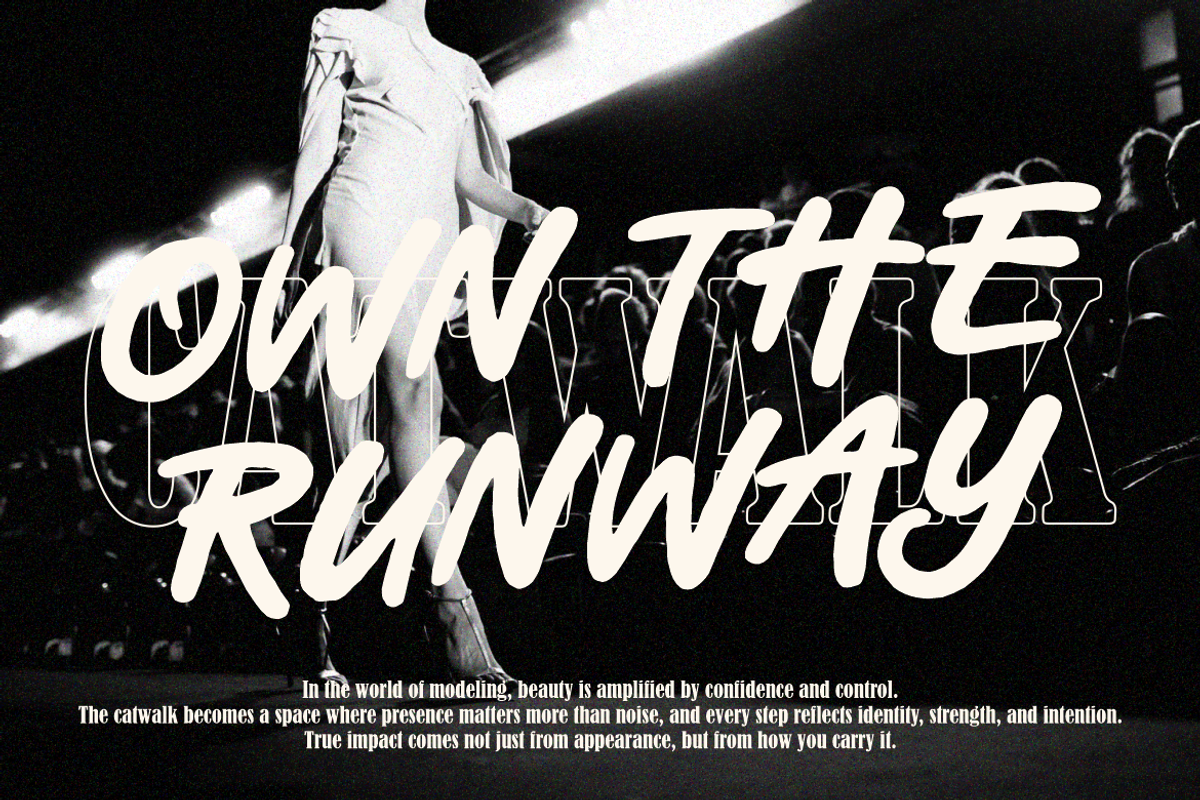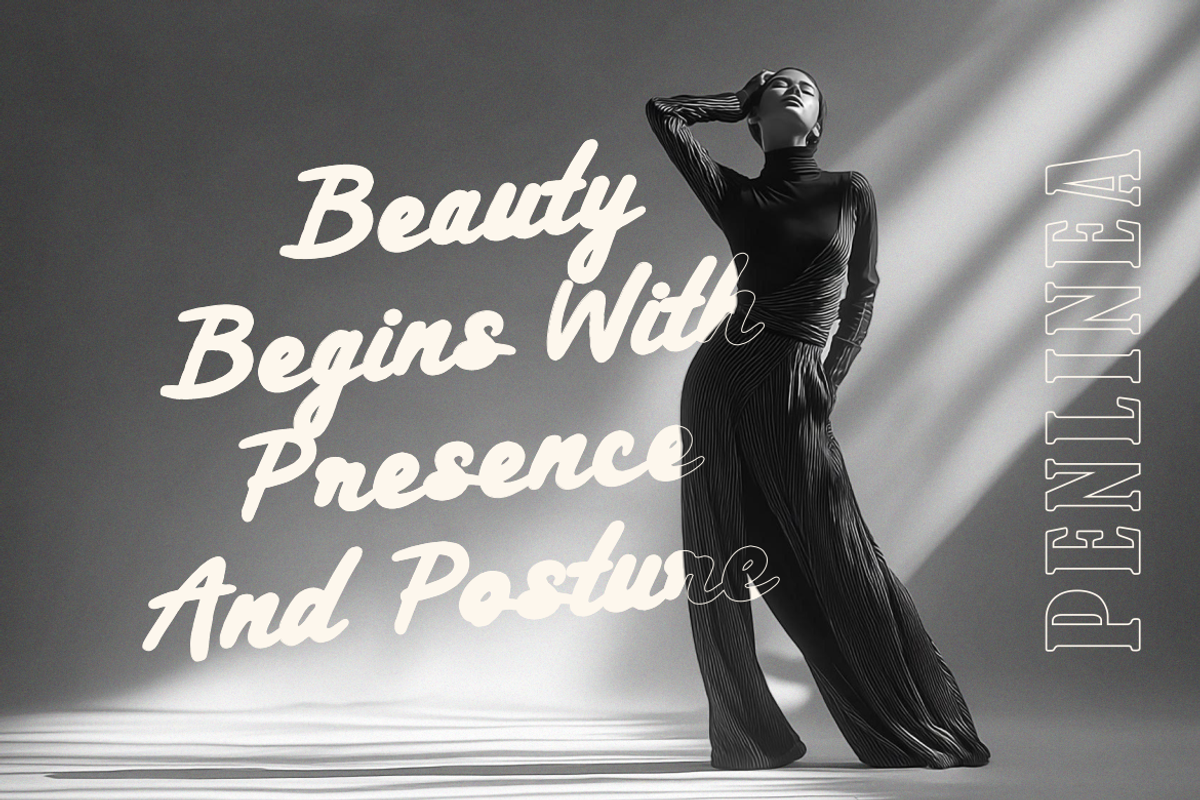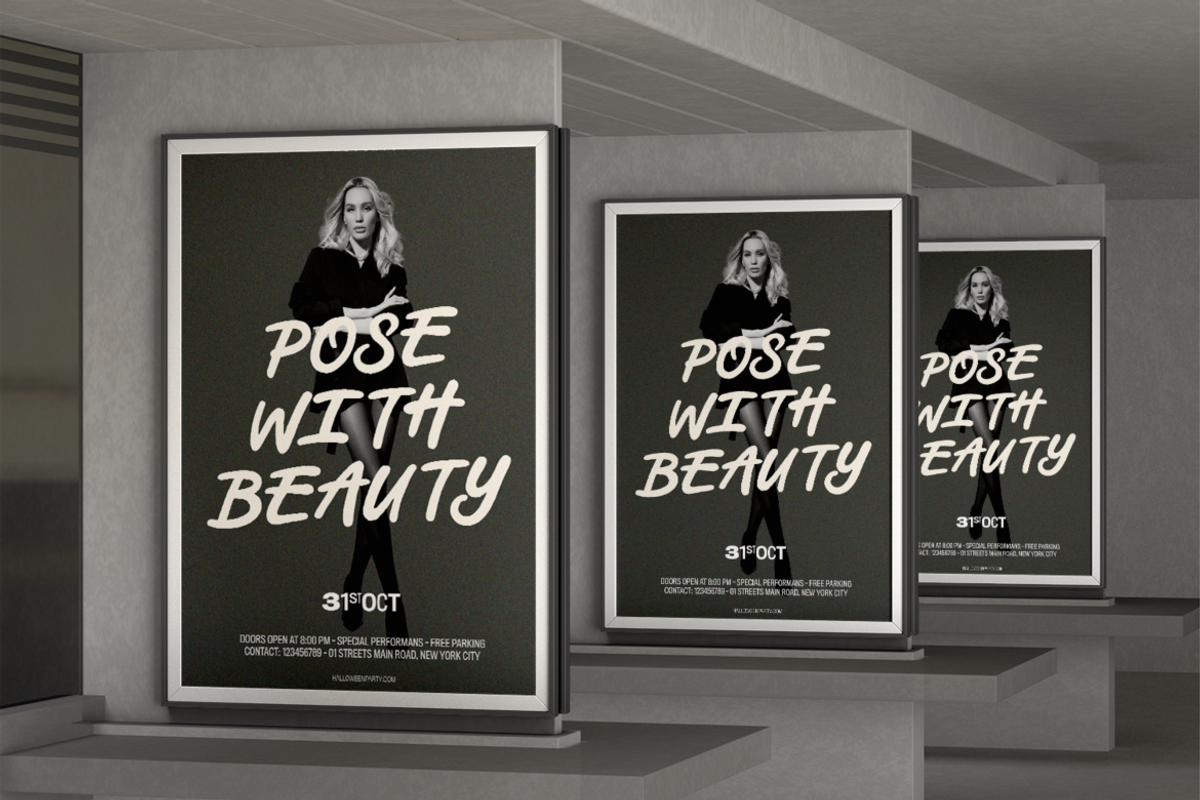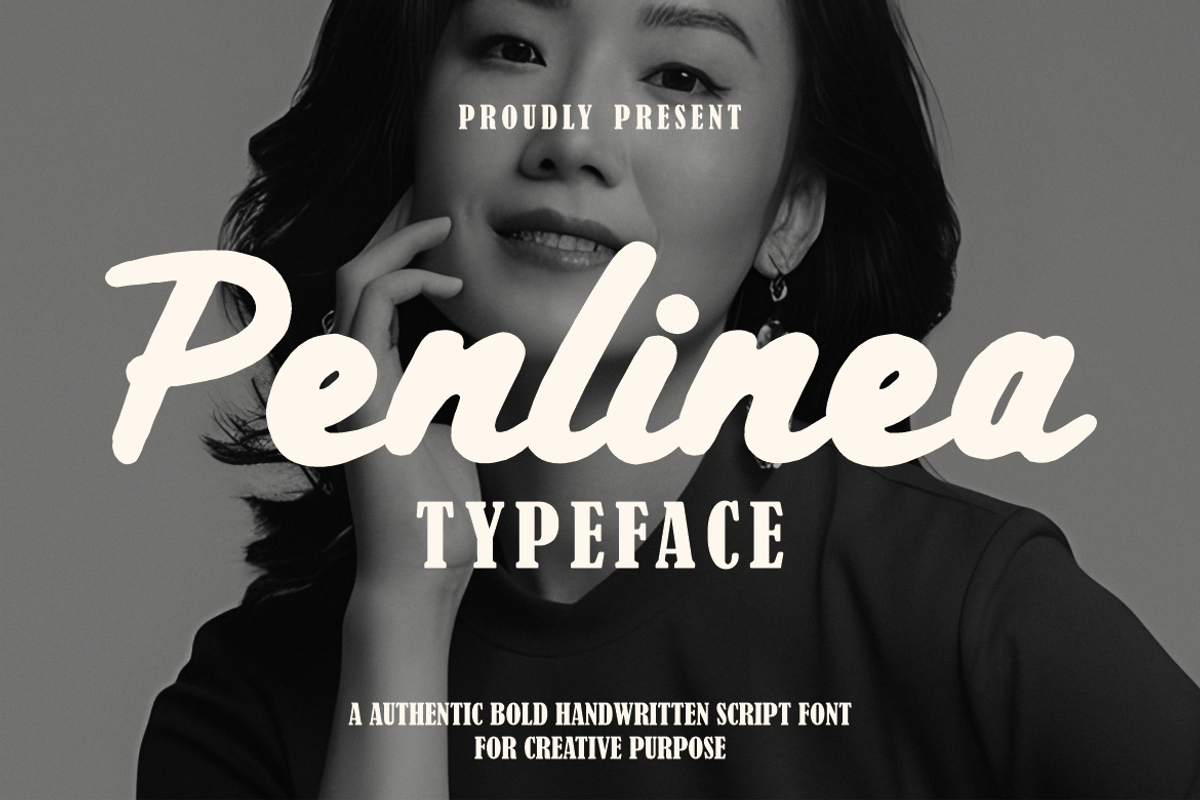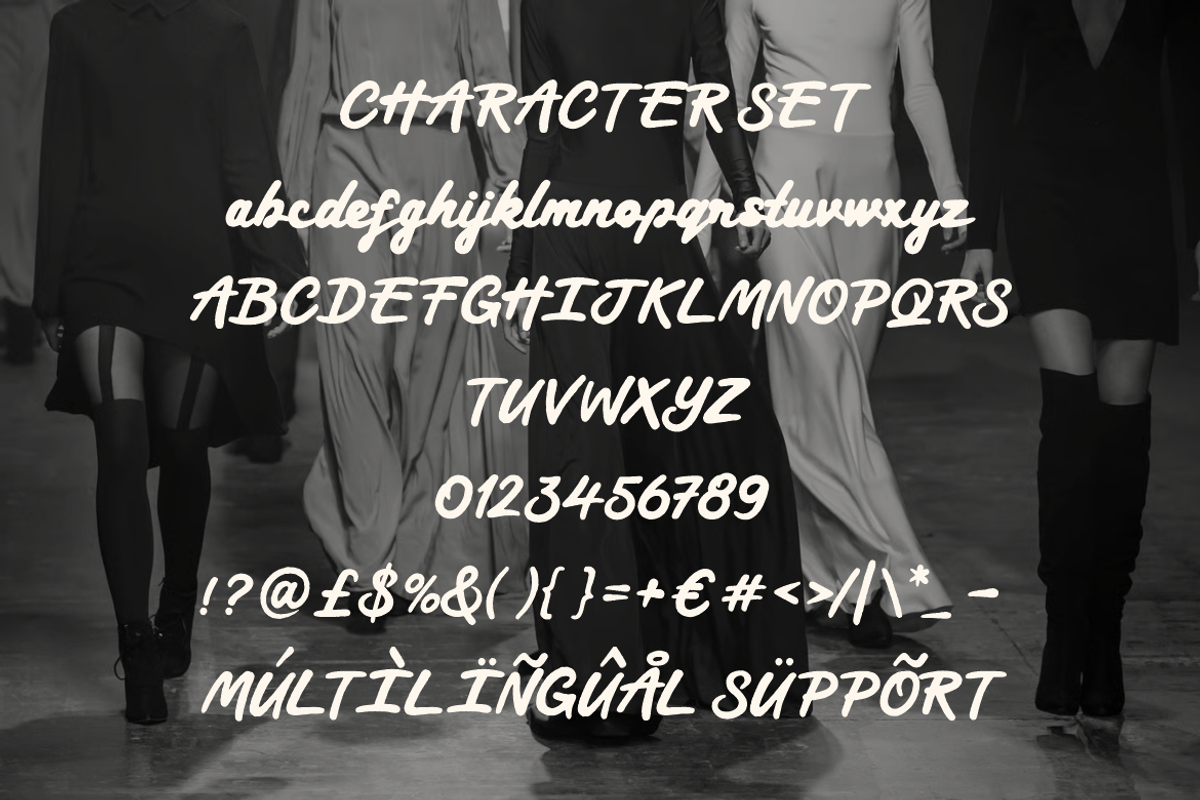
Penlinea Modern Brush Script Font
Penlinea Modern Brush Script Font features flowing handwritten strokes with dynamic thickness variation. The letters show strong contrast between thick downstrokes and lighter upstrokes. This creates a natural brush rhythm that feels fluid and confident. The baseline moves slightly, adding organic motion and personality to each word. Characters appear moderately tall with extended ascenders and smooth descending tails. Stroke endings feel soft and slightly textured, reflecting a hand-painted effect. Letter connections remain consistent, forming cohesive and readable word shapes. Spacing feels balanced, allowing phrases to stay clear while maintaining expressive energy. The style blends modern script with artistic handlettering, suitable for bold visual statements.
This font works well for branding projects that focus on lifestyle, beauty, and personal storytelling themes. It fits logo design, brand identity, and signature-style typography. The expressive strokes support posters, editorial headlines, and promotional campaigns. It performs strongly in quotes, biography titles, and inspirational text layouts. Designers can apply it to packaging, greeting cards, invitations, and crafting projects. It also suits book covers, magazine titles, and sticker designs. The handwritten character helps brands feel personal, creative, and approachable. Penlinea Modern Brush Script Font supports businesses that want expressive and stylish visual communication.